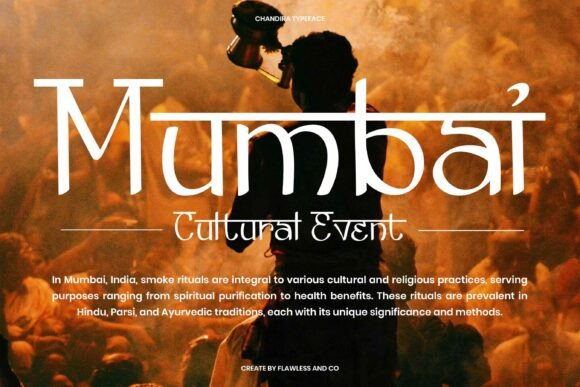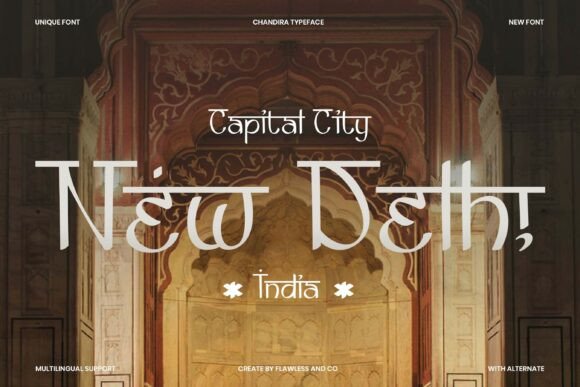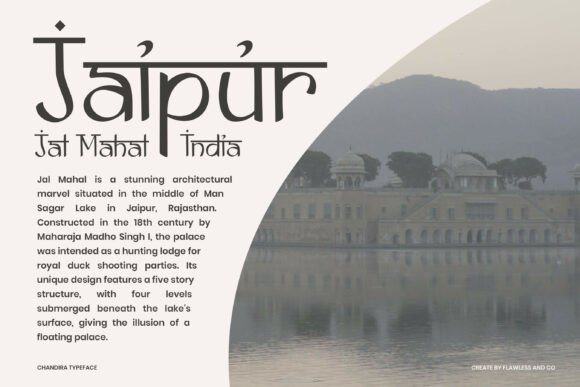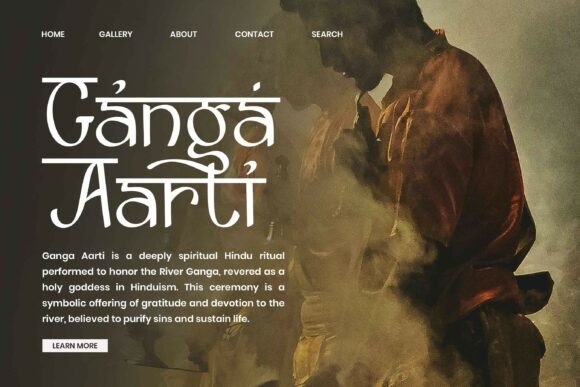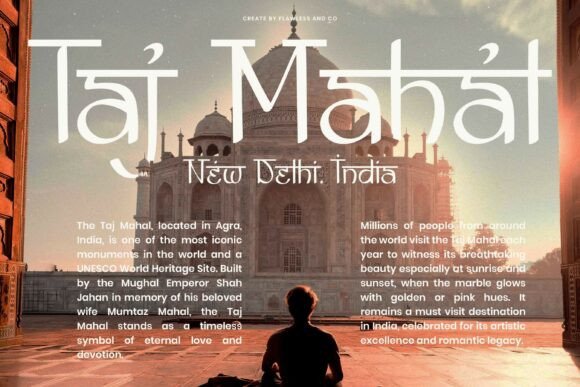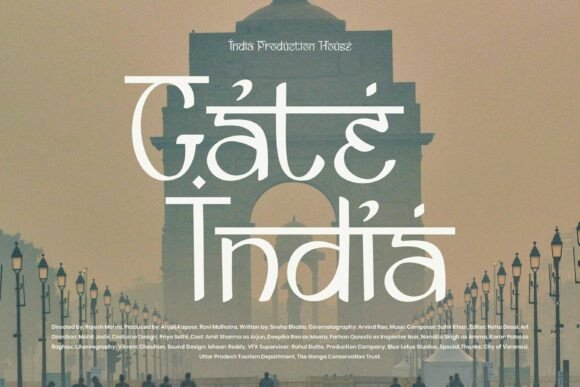
Introducing Chandira: A Hindi-Inspired Display Font that Embodies Elegance and Heritage
In the world of typography, fonts are more than just a means to convey words; they are an expression of style, emotion, and culture. Chandira, a Hindi-inspired display font, stands out as a beautiful blend of modern typography and traditional Hindi aesthetics. This elegant font is designed to evoke the charm of South Asian script forms, making it perfect for creative projects that celebrate heritage, storytelling, and visual depth.
The Inspiration Behind Chandira
Chandira draws its inspiration from the rich cultural heritage of South Asia, particularly the intricate and beautiful Hindi script. The font’s creator aimed to capture the essence of traditional Hindi calligraphy and infuse it with modern design elements, making Chandira a unique and versatile typeface. The result is a font that not only pays homage to the past but also meets the demands of contemporary design.
Design Characteristics of Chandira
Chandira is characterized by its graceful curves, unique alternates, and a blend of modern and traditional design elements. The font features:
- Timeless Charm: Chandira’s design is rooted in traditional Hindi aesthetics, giving it a timeless charm that is both elegant and sophisticated.
- Modern Versatility: Despite its traditional roots, Chandira remains crisp and versatile, making it suitable for a wide range of contemporary design applications.
- Unique Alternates: The font offers unique alternates that mimic the rhythm of ancient calligraphy, adding a touch of authenticity to any design.
- Graceful Curves: Chandira’s curves are carefully crafted to evoke a sense of fluidity and movement, making it perfect for creative projects that require a touch of elegance.
What Makes Chandira Special?
Chandira is more than just a font; it’s a cultural expression captured in letterforms. This font is perfect for designers and crafters who want to add a touch of heritage and elegance to their creative projects. Here are a few reasons why Chandira stands out:
- Cultural Significance: Chandira is a representation of South Asian culture and heritage, making it an excellent choice for projects that celebrate diversity and tradition.
- Storytelling: The font’s unique design elements and alternates make it perfect for storytelling, allowing designers to convey emotions and narratives through their typography.
- Visual Depth: Chandira’s blend of modern and traditional design elements adds visual depth to any project, making it stand out in a crowded design landscape.
Use Cases for Chandira
Chandira is a versatile font that can be used in a variety of creative projects, including:
- Branding: Chandira’s elegant design makes it perfect for branding projects that require a touch of sophistication and heritage.
- Packaging: The font’s unique alternates and curves make it suitable for packaging design, adding a touch of elegance to any product.
- Advertising: Chandira’s blend of modern and traditional design elements makes it perfect for advertising projects that require a touch of cultural significance.
- Digital Media: The font’s crisp and versatile design makes it suitable for digital media, including websites, social media, and mobile apps.
Chandira is a Hindi-inspired display font that embodies the elegance and heritage of South Asian script forms. Its unique blend of modern typography and traditional Hindi aesthetics makes it perfect for creative projects that celebrate heritage, storytelling, and visual depth. Whether you’re a designer, crafter, or simply someone who appreciates beautiful typography, Chandira is an excellent choice for any project that requires a touch of elegance and cultural significance.
With Chandira, you can add a touch of heritage and sophistication to your designs, making it a valuable addition to your typography collection.